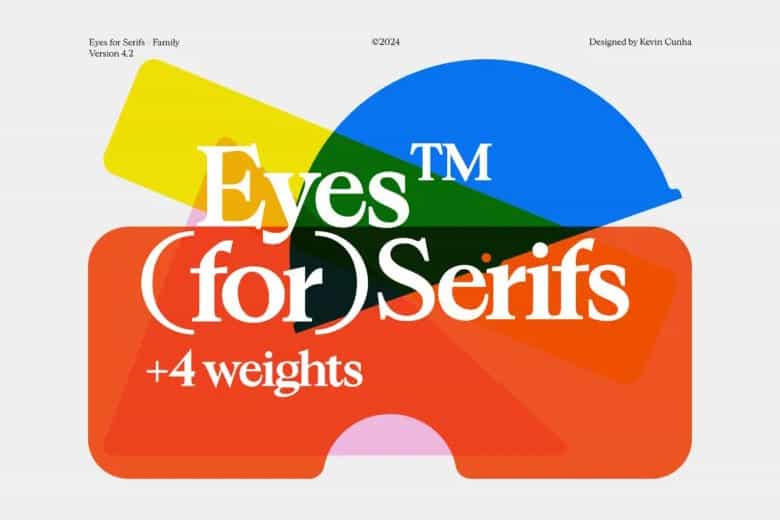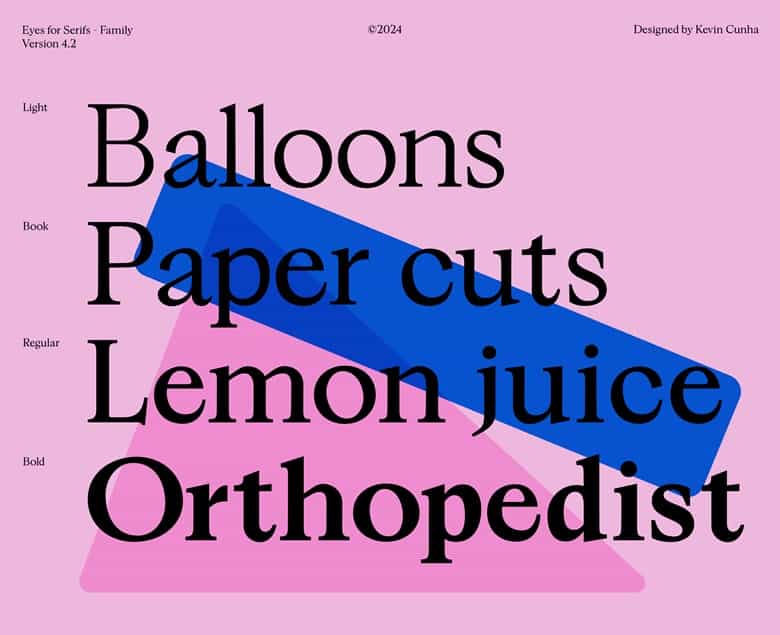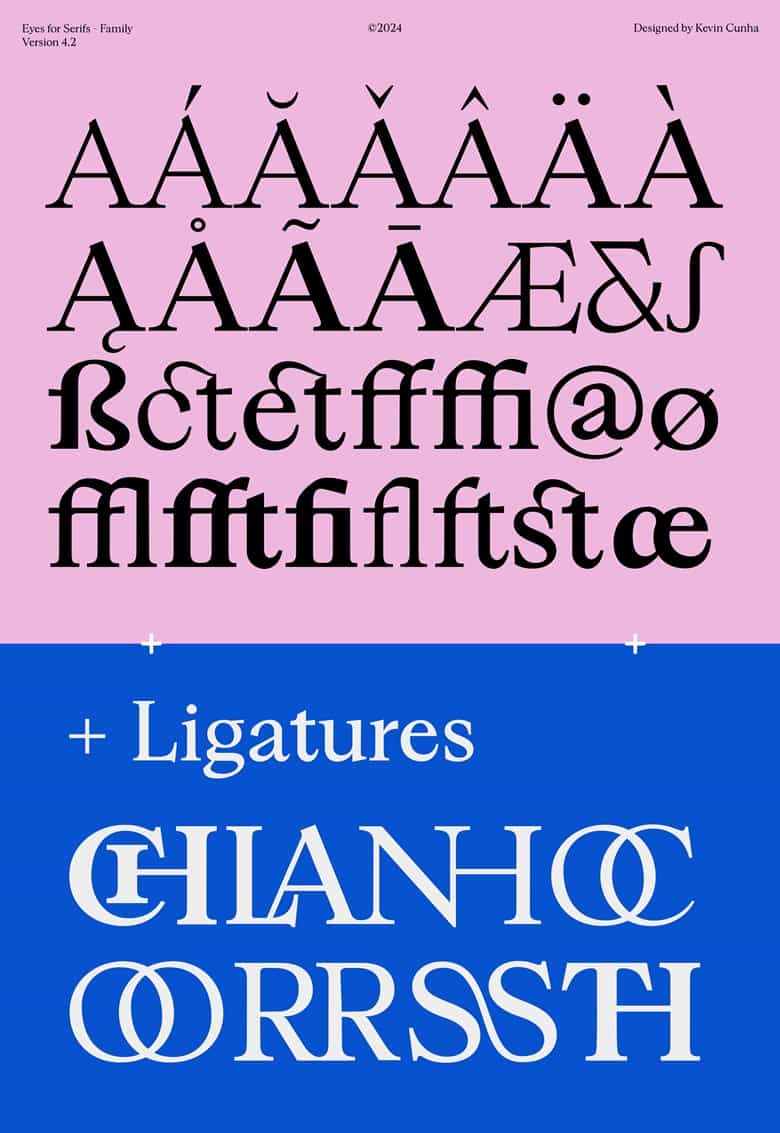
Eyes for Serifs is a new serif type family set that comes with 4 types. Designed by Kevin Cunha. This font gives examples of the Renaissance fonts but more personal and playful. The aim is simple, to get a font to a more readable tone, targeted towards editorial and printed versions but with that added edge.